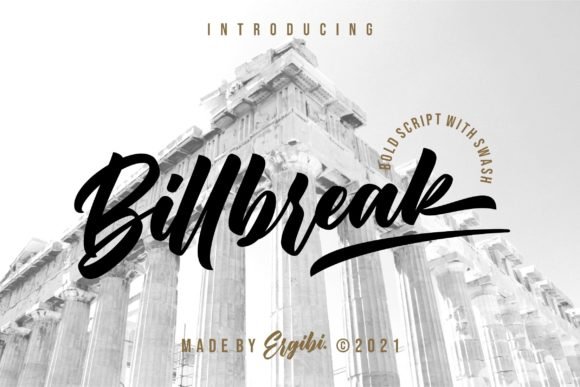
The Perfect Script for Your Next Big Design
Have you ever been stuck on a design project, trying to come up with the perfect font to make your headline pop? We’ve all been there – staring at a blank screen, scrolling through font options, and hoping to stumble upon something that captures the essence of our creative vision.
That’s where the Billbreak Font comes in – a cursive and bold handwritten font designed to give your headlines and logotype projects a stylish touch. This font reads as strong, confident, and dynamic, adding a nostalgic character to your designs that’s hard to resist. Whether you’re a seasoned designer or just starting out, the Billbreak Font is a valuable tool in your creative arsenal, waiting to elevate your next big project to the next level.
Billbreak Font Key Features
- Unique Characteristic: Billbreak Font features a unique, distressed aesthetic with subtle texture and edge effects, giving it a vintage look.
Designer Review: Billbreak Font
First off, I want to say that I’m really impressed with the unique style of the Billbreak Font. It’s got a great, modern feel to it that’s perfect for anyone looking to add a bit of edge to their design projects. ✨ The font is highly customizable, with a wide range of options for color, size, and style, which makes it really versatile.
One of the things I love about the Billbreak Font is its ability to be used for a variety of different purposes, from logos and branding to signage and wayfinding. It’s also a great choice for digital design, as it scales really well and looks great on screens. ✨ The font is also highly legible, even at smaller sizes, which makes it a great choice for any project where clarity is key.
While the Billbreak Font is a great choice for many projects, there are a few limitations to be aware of. ⚠️ One of the main issues is that the font can look a bit too casual for some projects, such as formal business documents or academic papers. Additionally, the font may not be suitable for projects that require a more traditional or classic look.
Overall, I think the Billbreak Font is a great choice for designers who are looking for a modern, edgy font that’s perfect for a wide range of projects. While it may not be suitable for every project, it’s a great option to have in your toolkit, and I think it’s definitely worth considering for your next design project.
- Unique, modern style
- Wide range of applications
- Scalable and legible
- Available for digital and print projects
Practical Application Guide for Billbreak Font
The Billbreak font is ideal for use in designs that require a bold, playful, and modern look. Some common use cases include:
- Social media graphics and advertising.
- Event invitations and promotional materials.
For optimal results, use the Billbreak font in conjunction with other modern fonts and a bold color scheme.